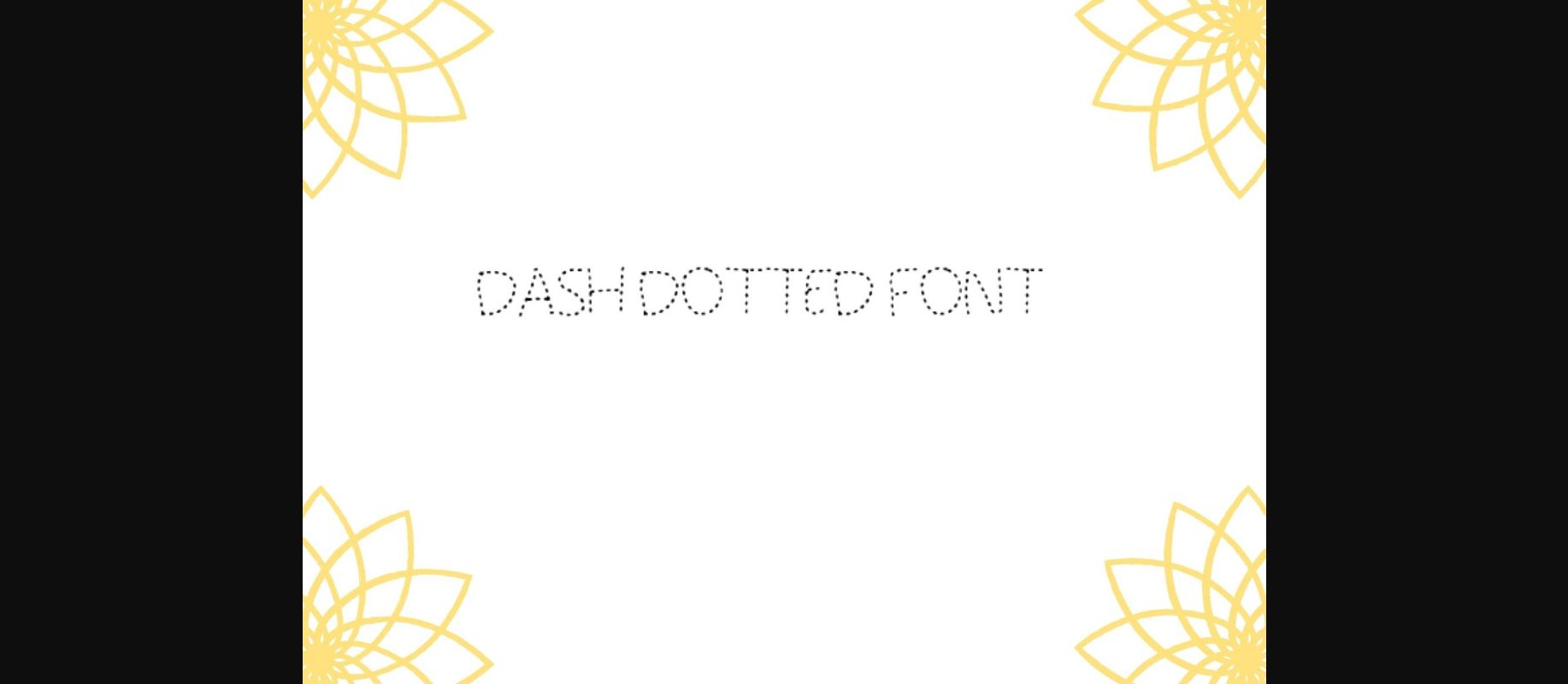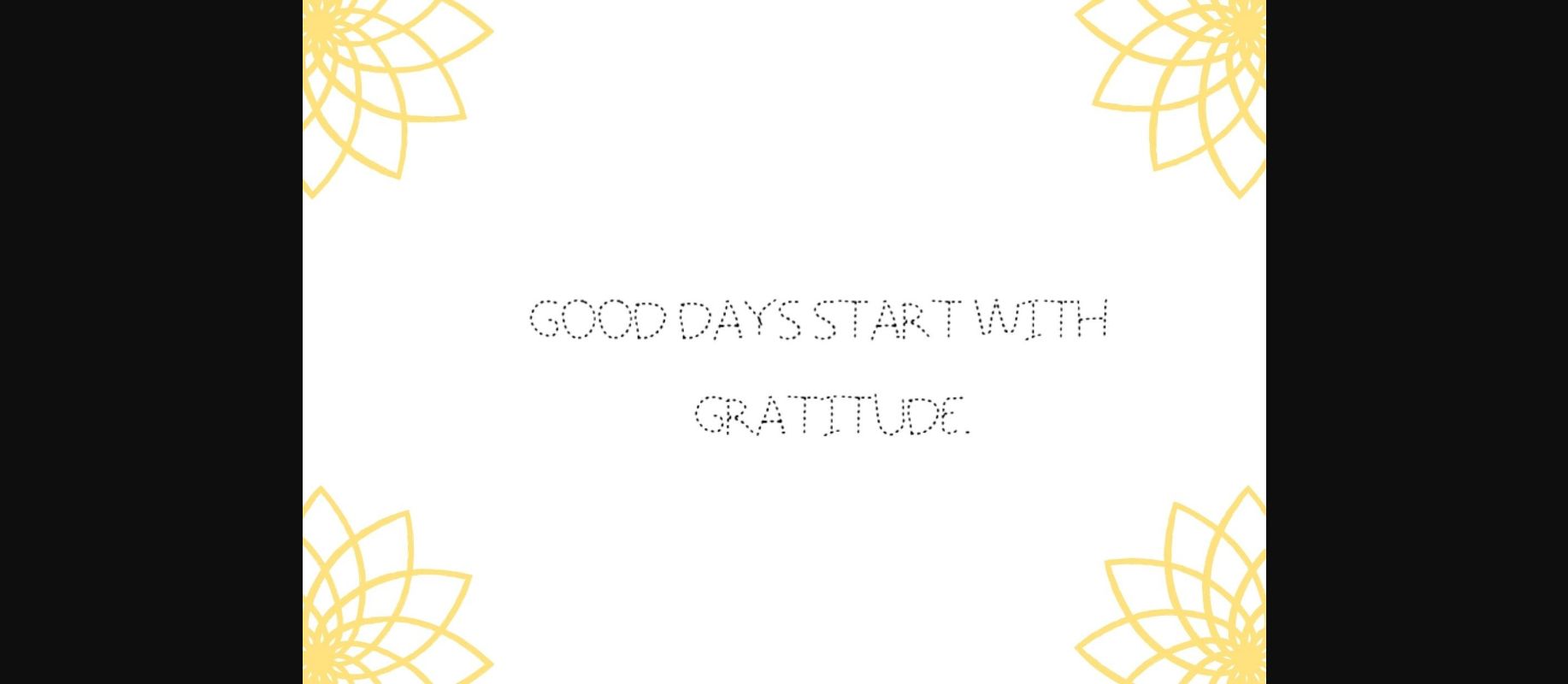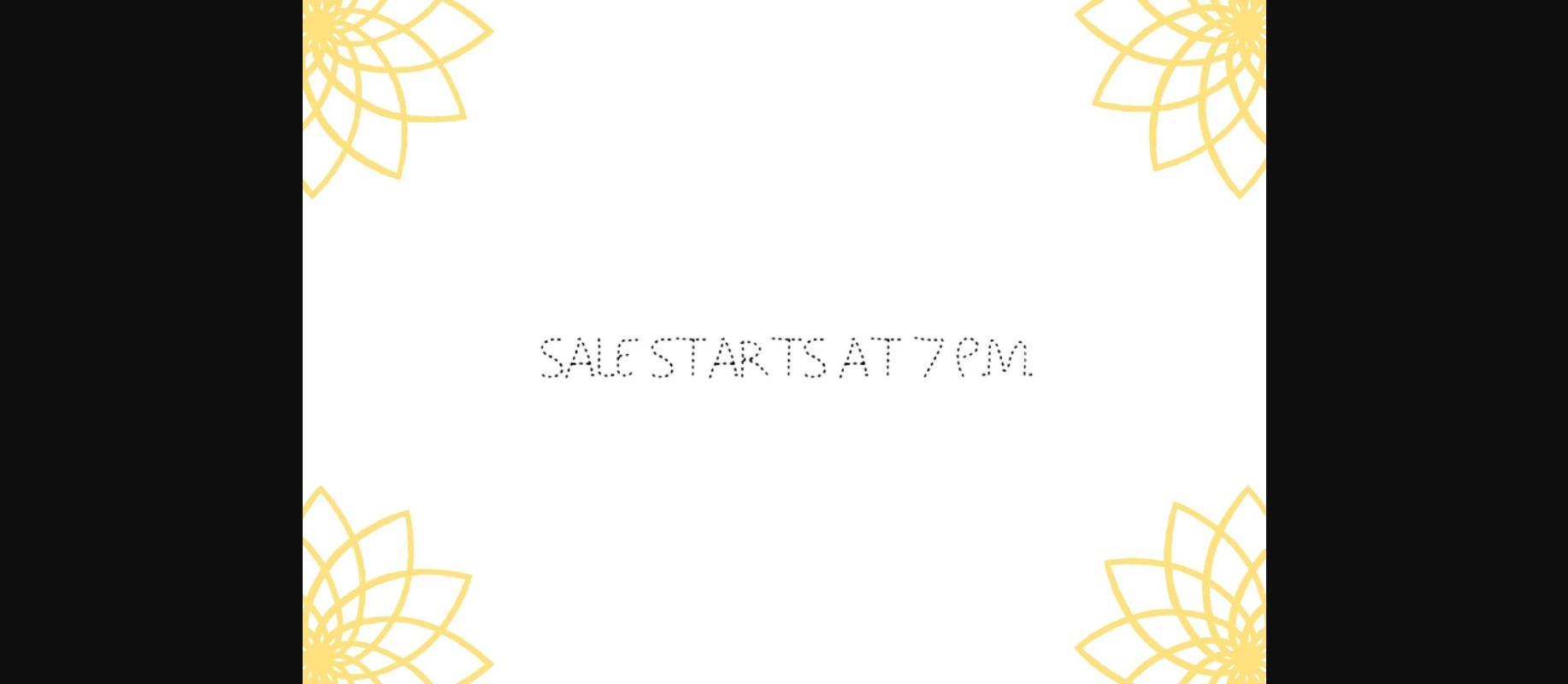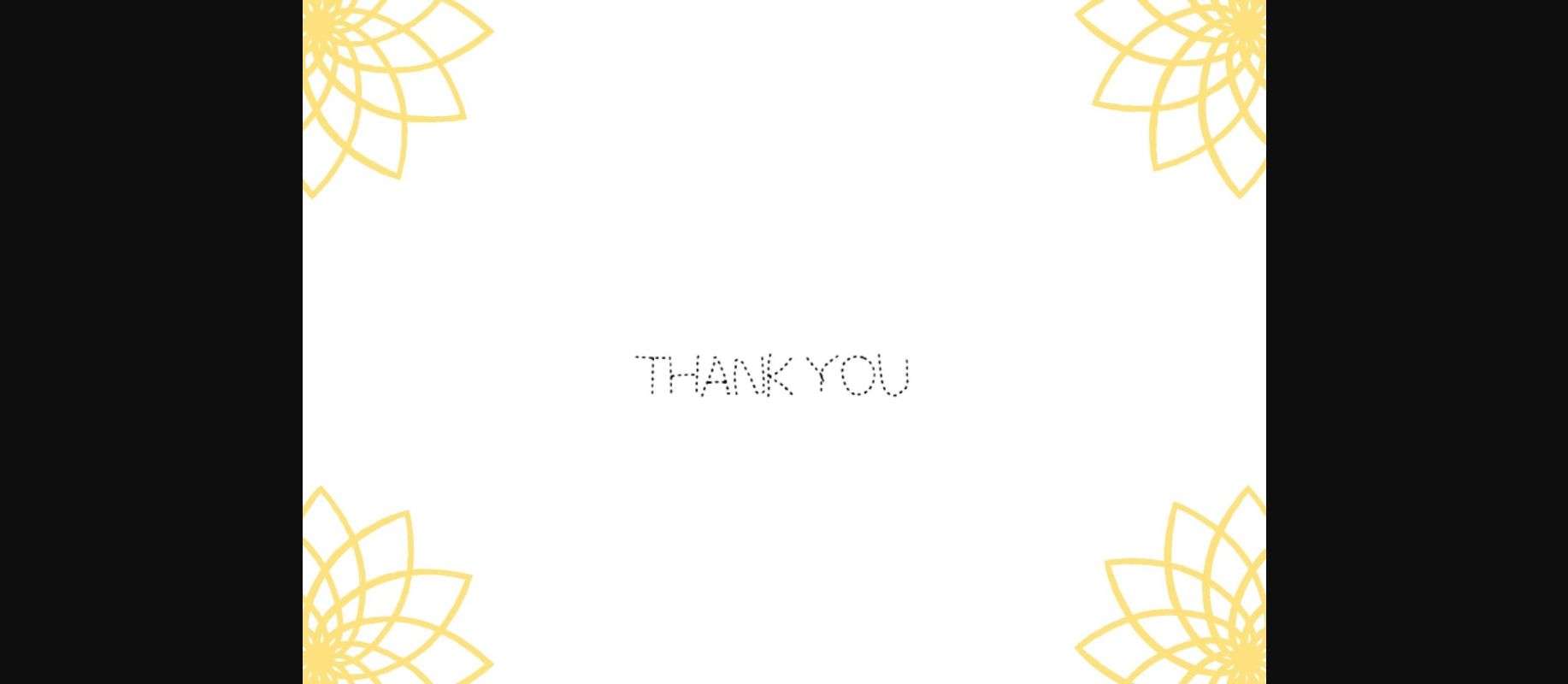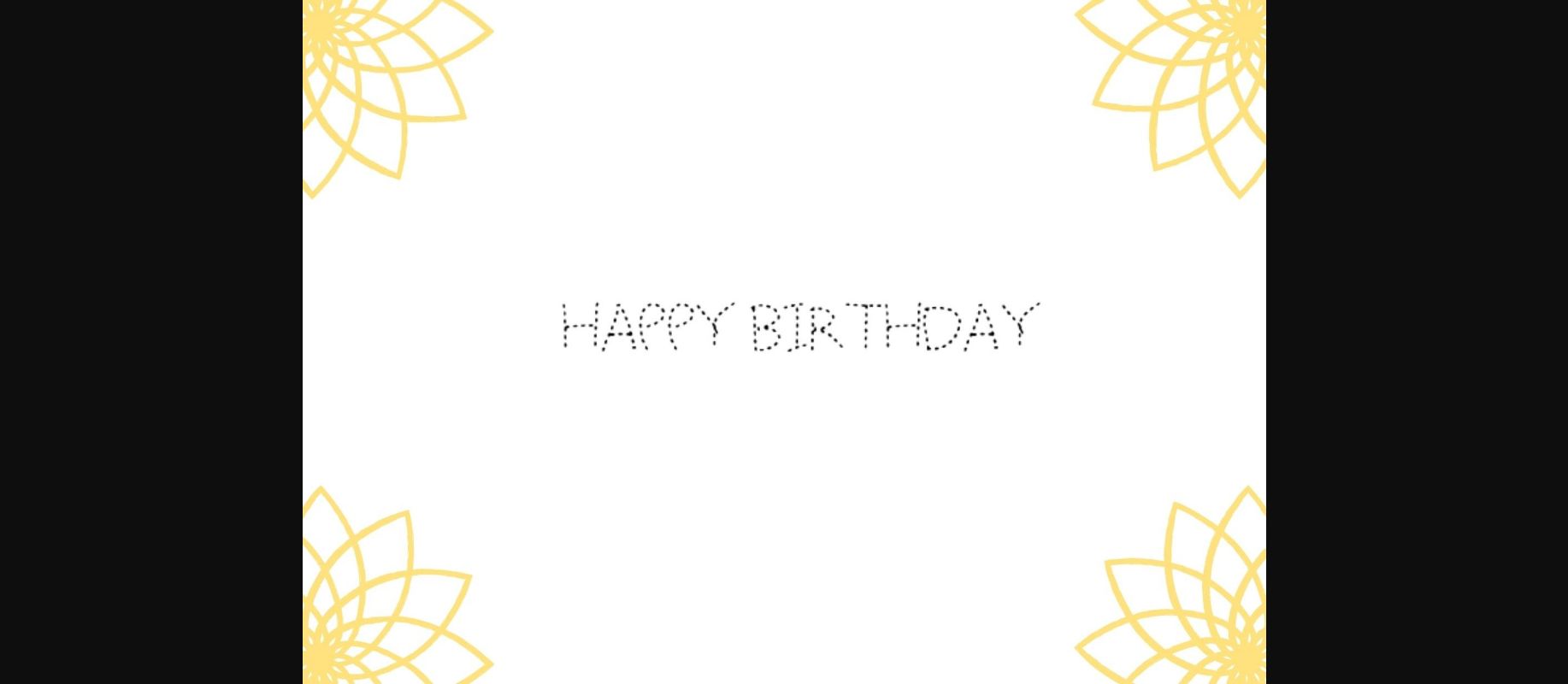
Dash Dotted ia a cool and adaptable decorative font. It will look cool on a variety of designs related to games or children projects. Use this font for your designs and explore its endless possibilities.